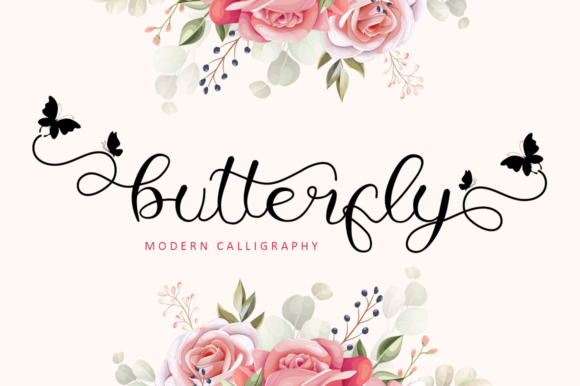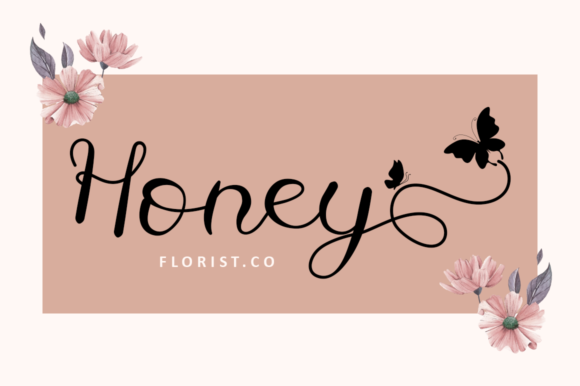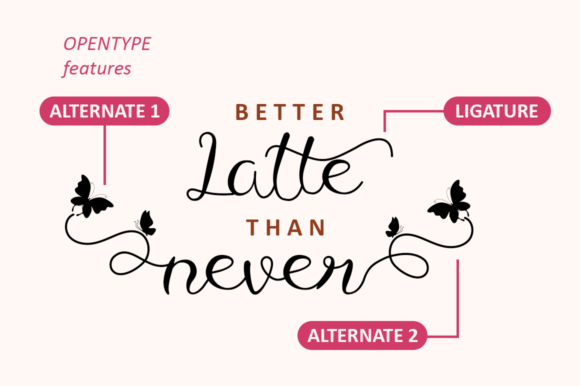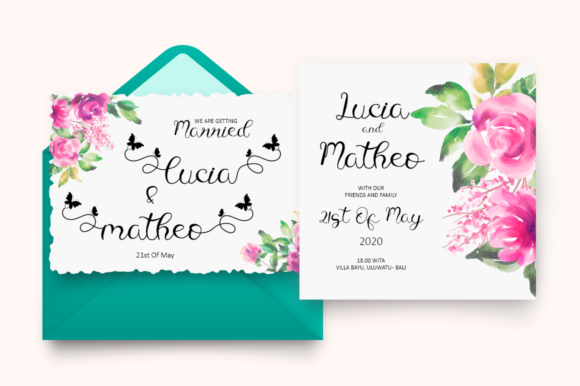
About the Butterfly Font
Add a touch of class to your work with the Butterfly Font, a truly exceptional typeface. Butterfly is a beautiful handwritten font. It has a classy, elegant, and modern look which can be used for logos, branding, invitations, stationery, wedding designs, social media posts, and much more.This font is PUA encoded which means you can access all of the butterfly-themed glyphs and swashes with ease! It also features a wealth of special features including alternate glyphs and ligatures.
Butterfly Font Usage Examples
Butterfly Font Example